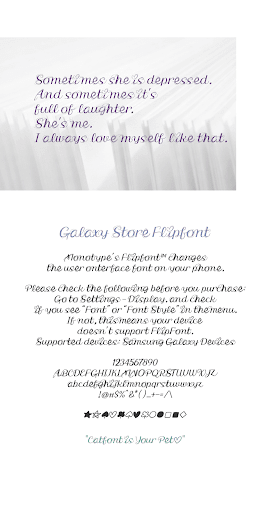
CatSheis.
Happy and joyful font! This is CatFont.
This is rhythmic and unique font.
It's a natural and beautiful cursive style.
There are hearts on the lowercase letters i, and j
"Catfont is Your Pet♡"